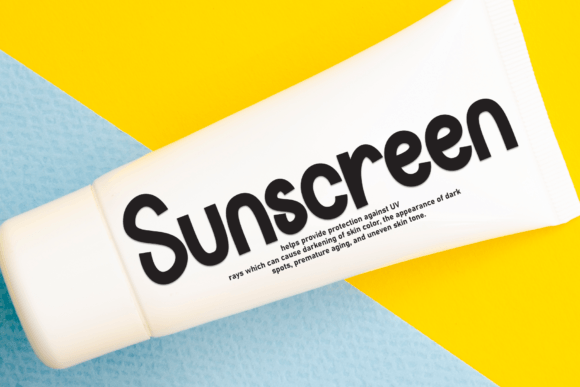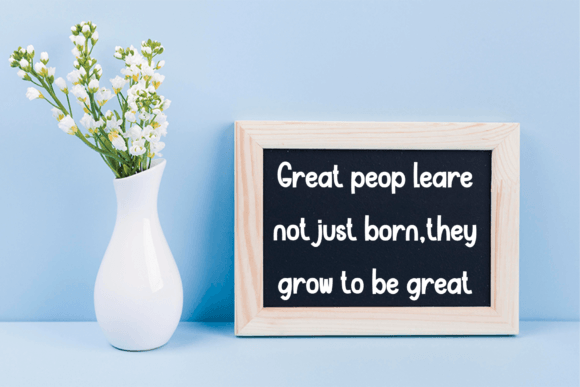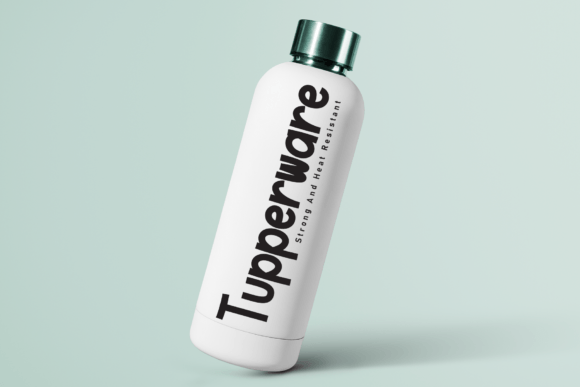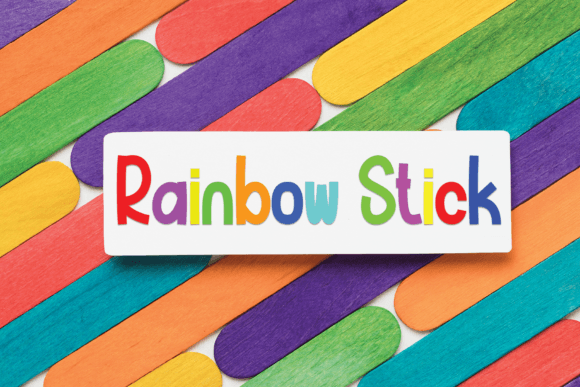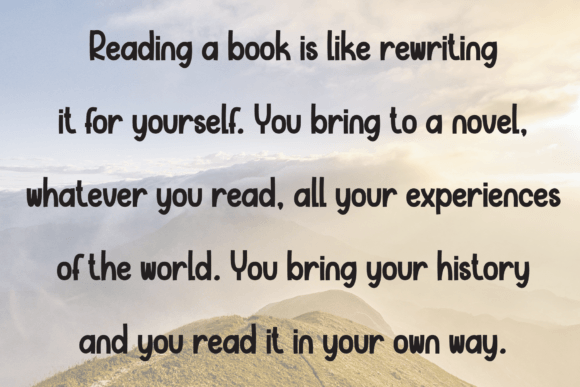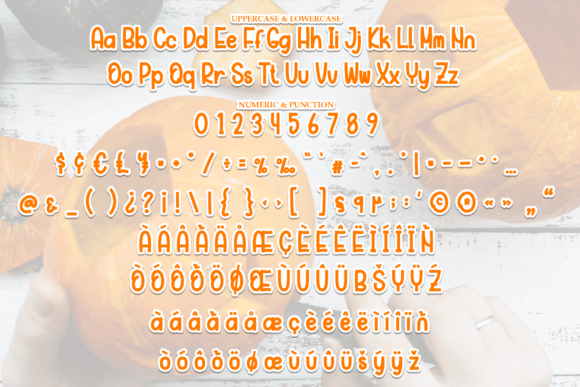
Introduction to Pumpkin Handmade Font
Do you remember the moment when you finally found the perfect font to elevate your design project? For many creatives, that moment is pure magic. It’s the instant when all the elements come together, and the message shines through. For me, that moment came when I stumbled upon the Pumpkin Handmade Font. Its clean, relaxed, and friendly handwritten style had an instant appeal, making me wonder how I ever managed without it.
As a valuable resource for designers, Pumpkin Handmade Font offers a wide range of creative possibilities. Its high-quality design makes it suitable for various projects, from branding and marketing materials to social media graphics and blog posts. With a transparent background, this font is easy to use and can be downloaded for free, making it an excellent addition to any design toolkit.
Whether you’re working on a personal project or a client’s brief, Pumpkin Handmade Font is an excellent choice. Its simplicity and friendliness make it an ideal design resource for any creative endeavor. In this article, we’ll dive deeper into the world of Pumpkin Handmade Font and explore its features, uses, and why it’s become a go-to font for many designers.
Key Features of Pumpkin Handmade Font
- Unique, hand-drawn design with a warm and inviting feel, perfect for creative projects and personal use.
- Perfect for crafting, card making, scrapbooking, and other creative pursuits where a personal touch is desired.
Honest Review: Pumpkin Handmade Font
I recently had the chance to work with the Pumpkin Handmade Font, and I must say it’s been a delightful experience. This free download has quickly become one of my go-to design resources for creative projects.
What works well: ✨ The font’s unique, handcrafted feel adds a personal touch to any design. The high quality of the font files ensures that it looks great even on transparent backgrounds, which is perfect for creating visually appealing graphics.
- High-quality font files
- Unique, handcrafted feel
- Works well on transparent backgrounds
However, there are a few limitations to consider: ⚠️ The font only includes uppercase and lowercase letters, which may be a limitation for those who need to use punctuation marks or numbers in their designs.
Overall, I’m thoroughly impressed with the Pumpkin Handmade Font. It’s a great design resource for anyone working on creative projects, and its free download makes it accessible to designers of all levels.
The Pumpkin Handmade Font is ideal for various creative projects, including invitations, greeting cards, and social media graphics. Its unique and whimsical design makes it perfect for adding a personal touch to your designs.